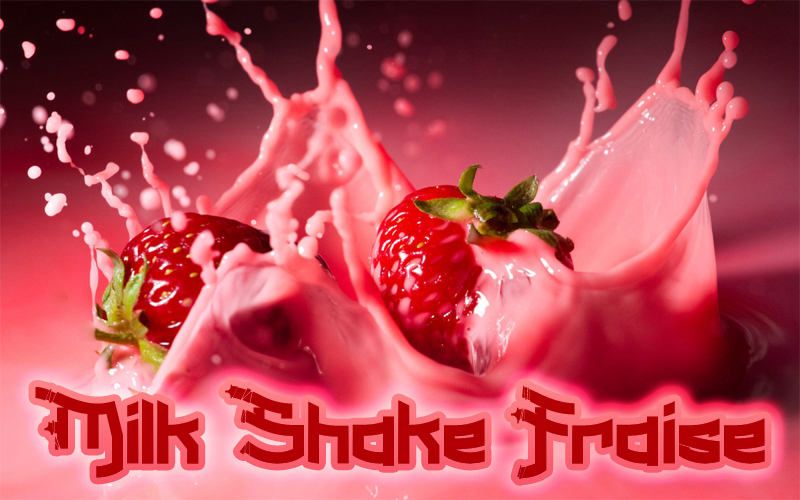
Milk Shake Fraise is a free Japanese-inspired display font with broad, sharply cut letters and a dark, architectural silhouette. Repeated slashes, splintered notches, and broken joins give the lettering the look of paper forms sliced apart and fitted back together.
Streetwear labels and alternative music brands could use its hard angles for logos, posters, and merchandise. Its fractured details also suit action-game graphics and event artwork with an urban or martial-arts theme. At its best, the lettering becomes part of an emblem or illustrated title rather than acting as neutral text.
Milk Shake Fraise